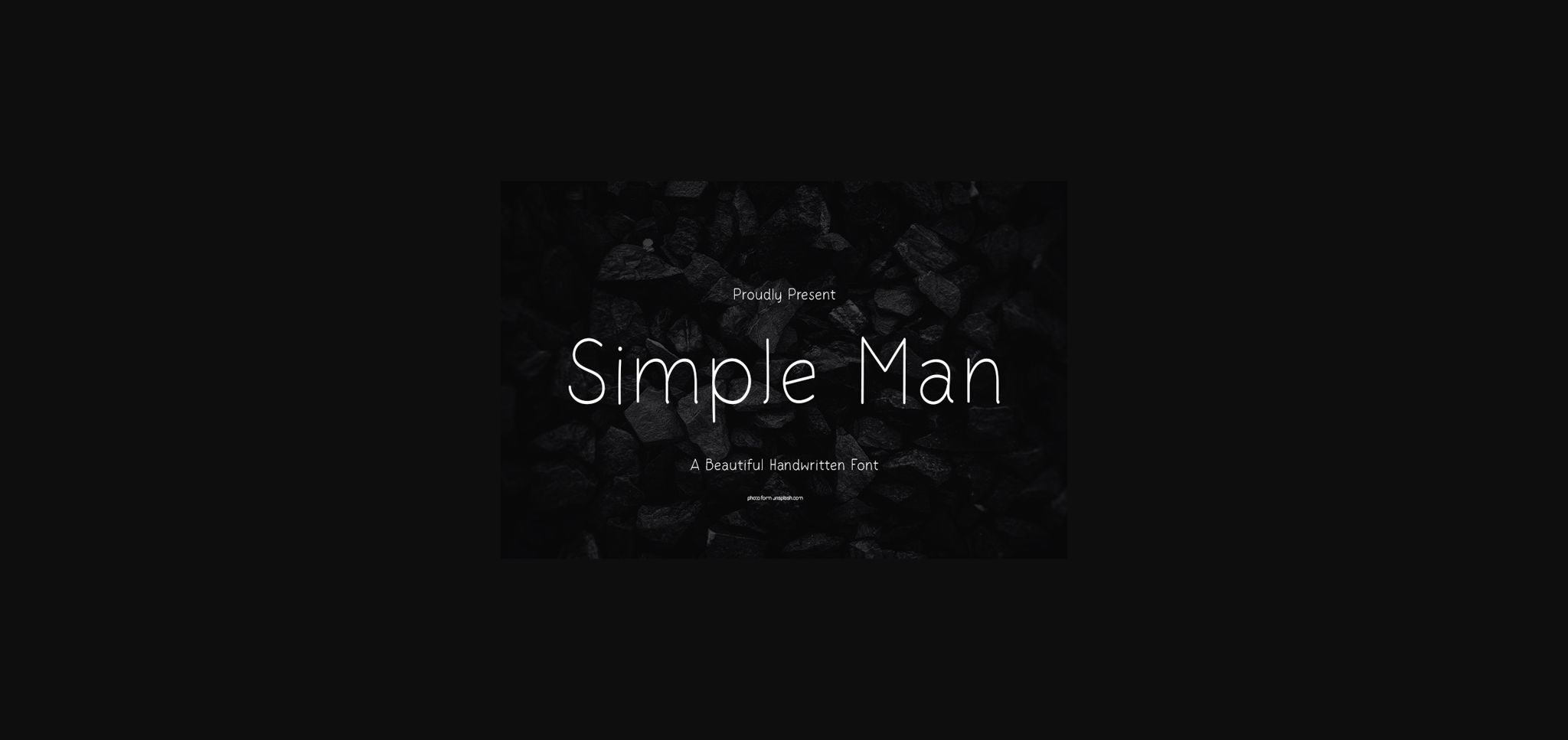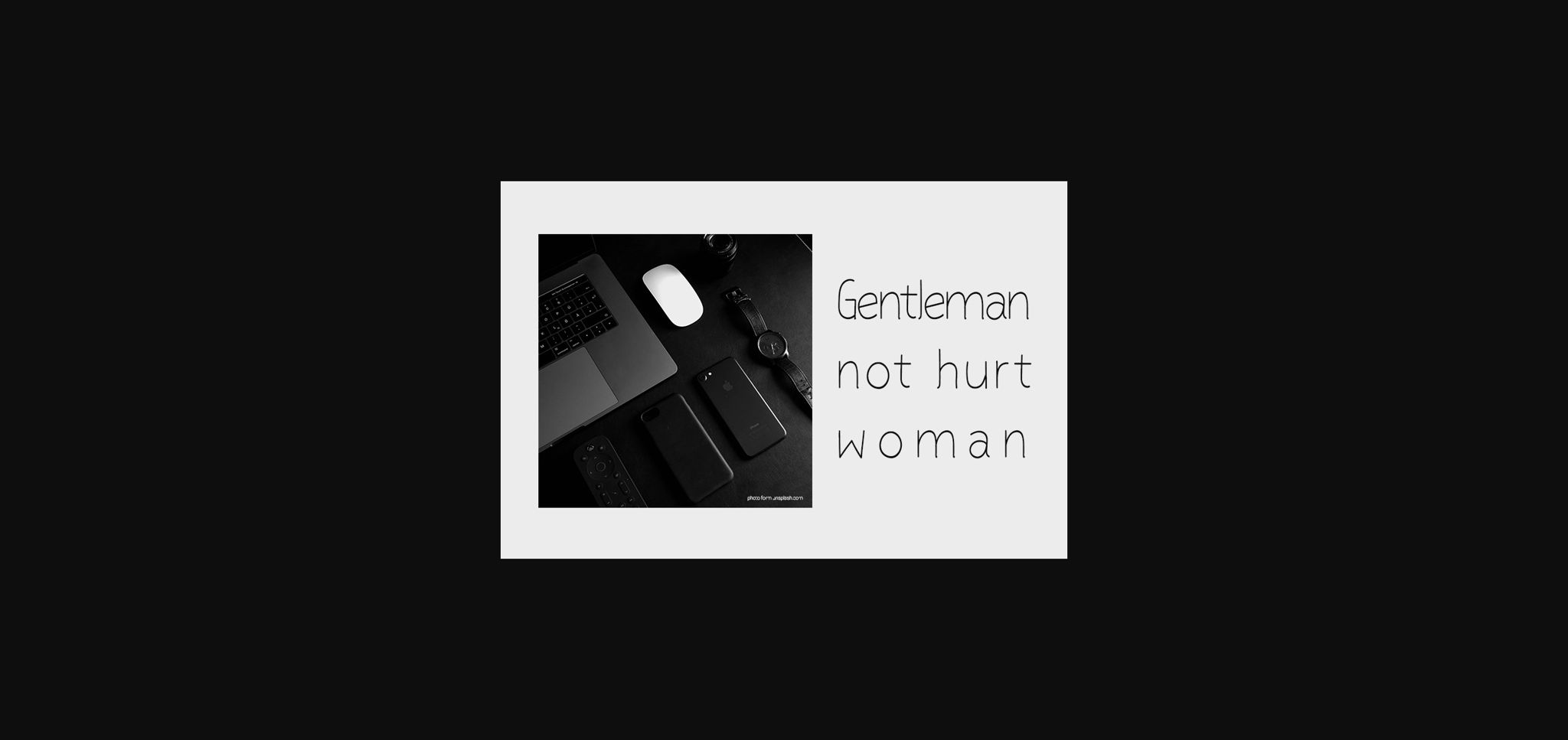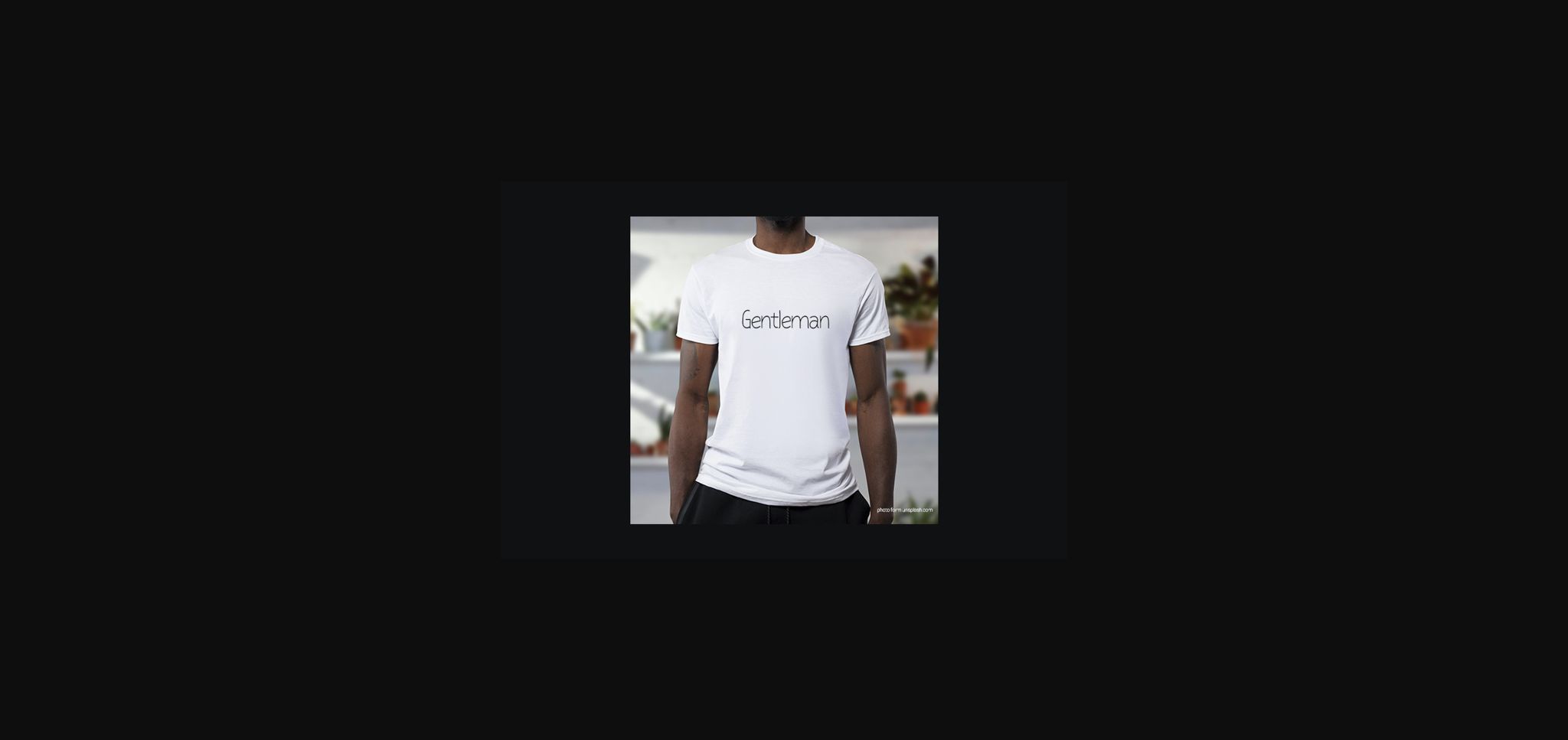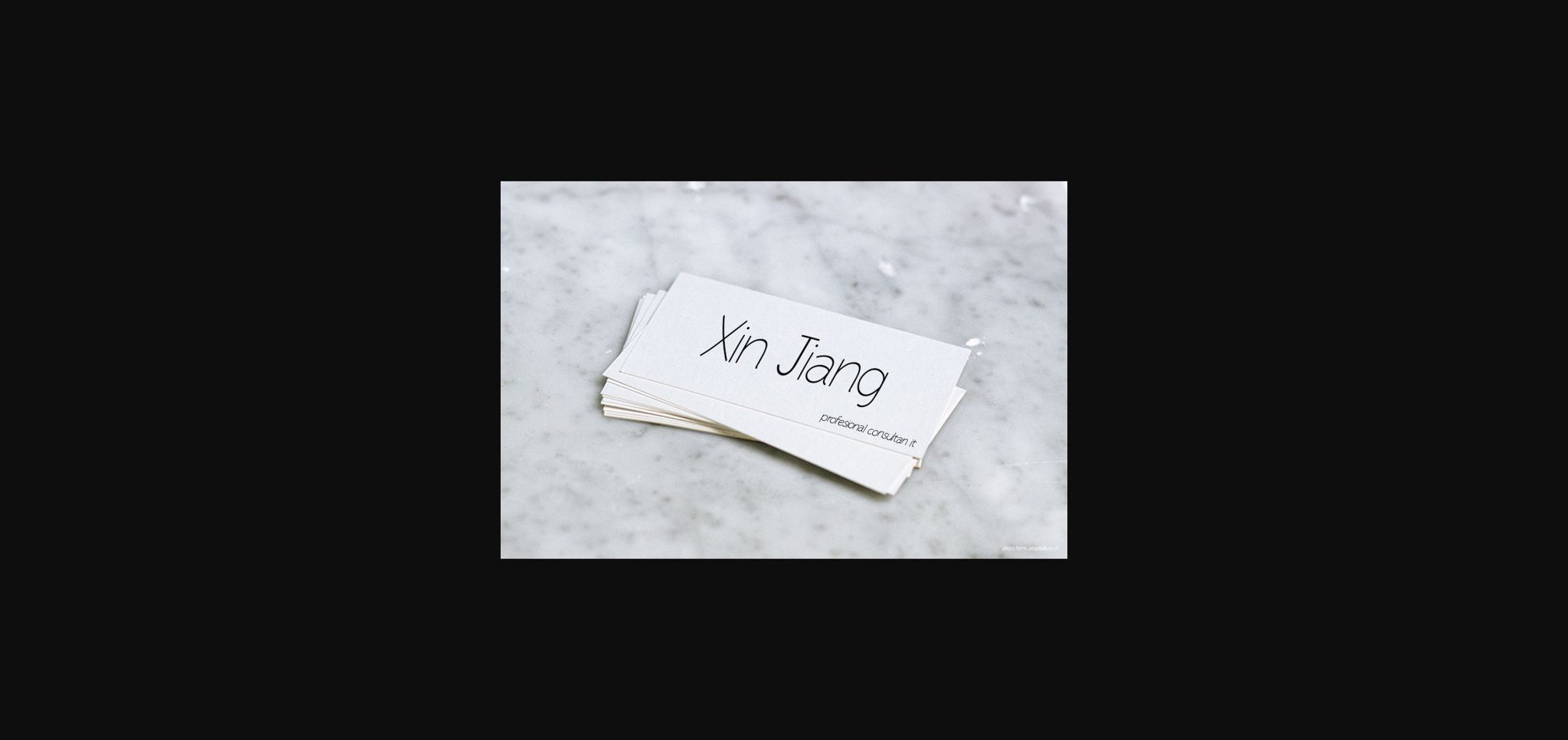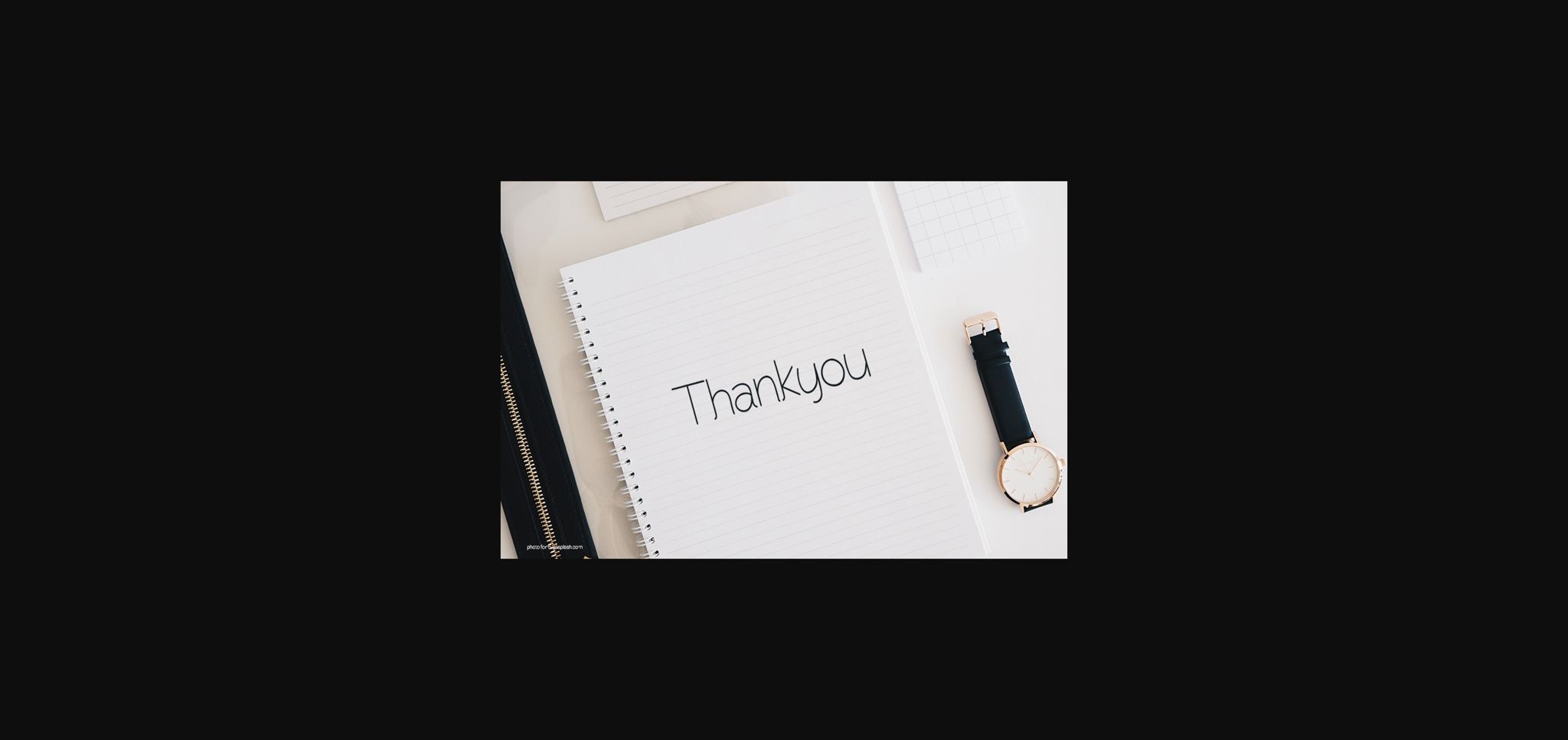
Simple Man is a thin and simple sans serif font. It can be matched to a large set of projects, so add it to your creative ideas and notice how it makes them stand out!